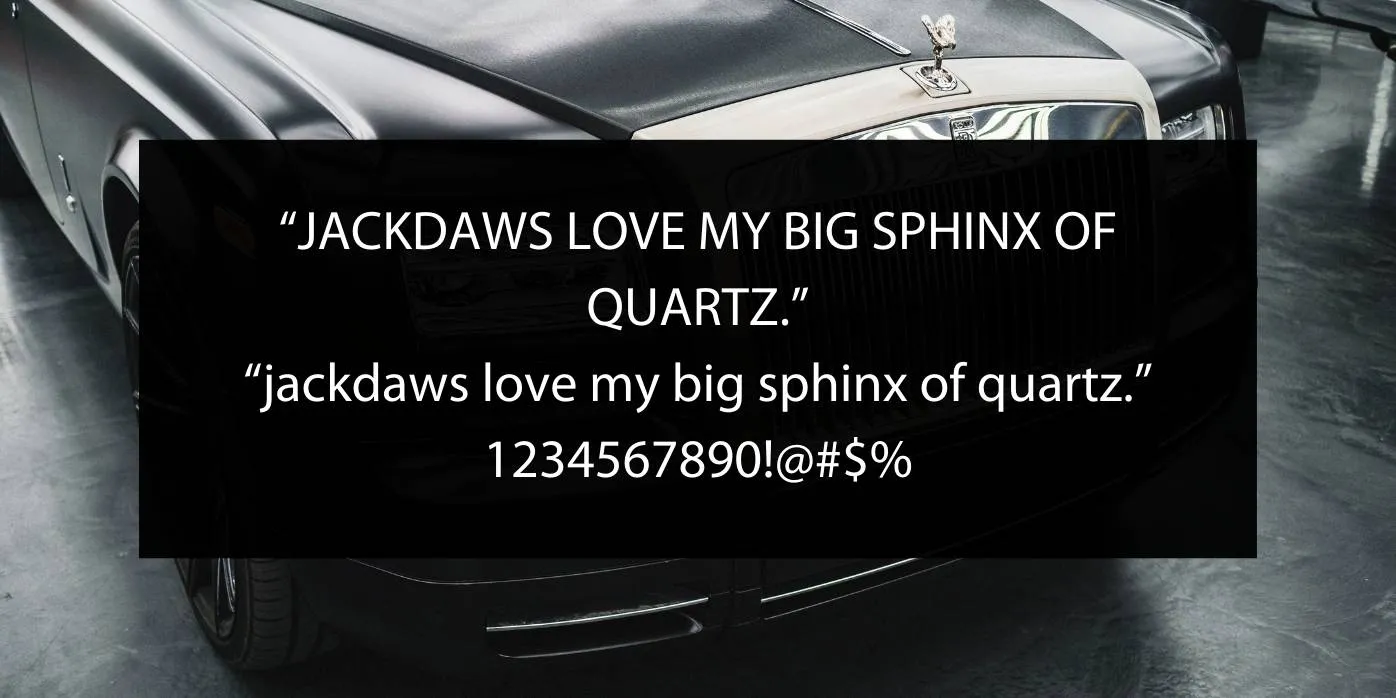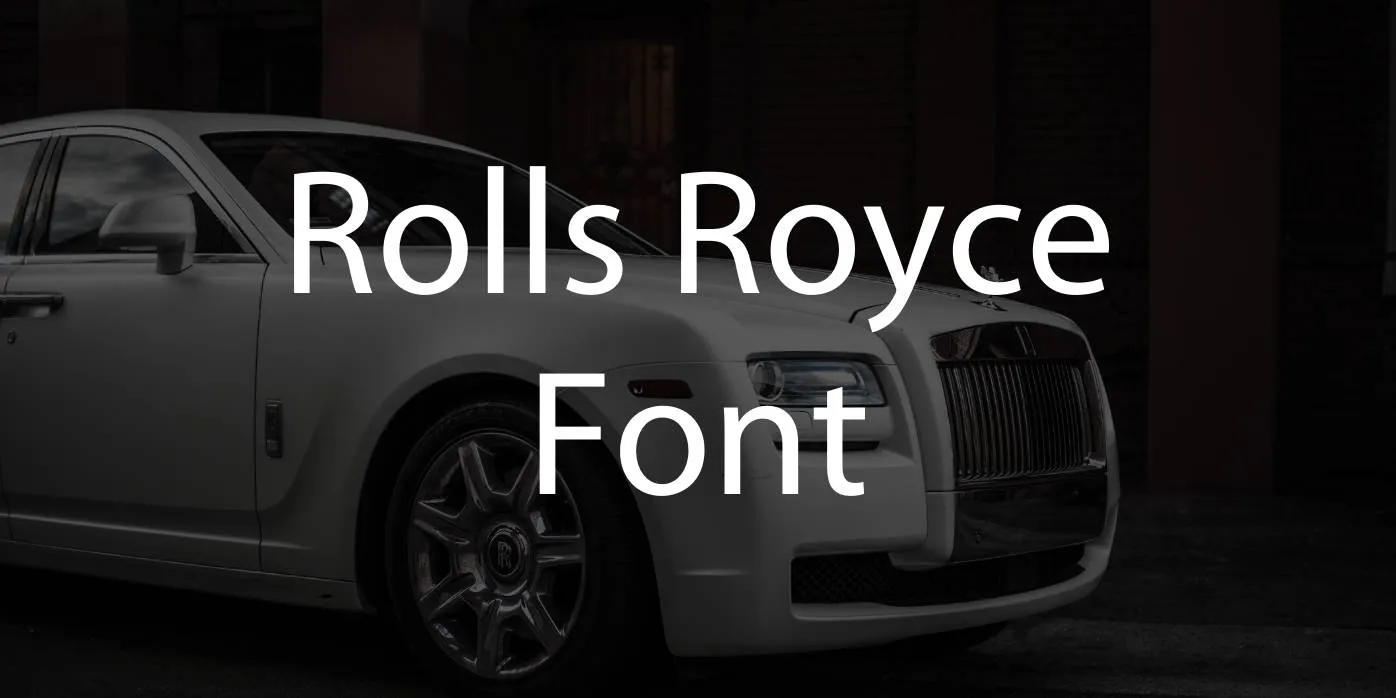
Rolls Royce Font
Rolls Royce Font is a classic sans-serif font that has been used by the Rolls Royce company for many years. The font is simple and easy to read, making it a popular choice for business and corporate use. The Font has a long history, dating back to the early days of the company. The Typeface was first used on the Rolls Royce logo, which was created in 1904.
The logo was designed by C.F. Anderton, and the font was used in the company’s first advertising campaign. The Font has been used on many different products over the years, including cars, aircraft, and even boats. It is much similar to the choplin font and you can make many stunning arts and illusions with the help of this font.
This font has a classic and timeless look that is perfect for any business or individual looking for a professional appearance. The Font is available in many different formats, making it easy to find the perfect version for your needs.